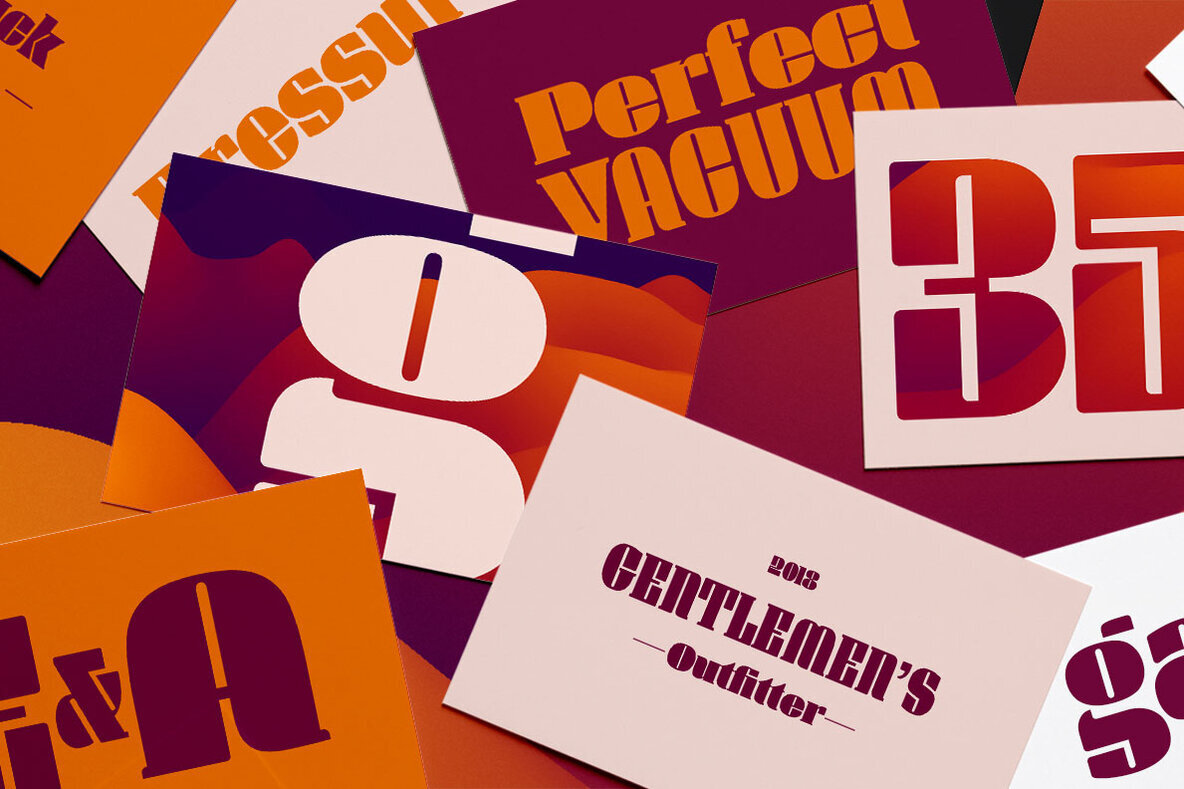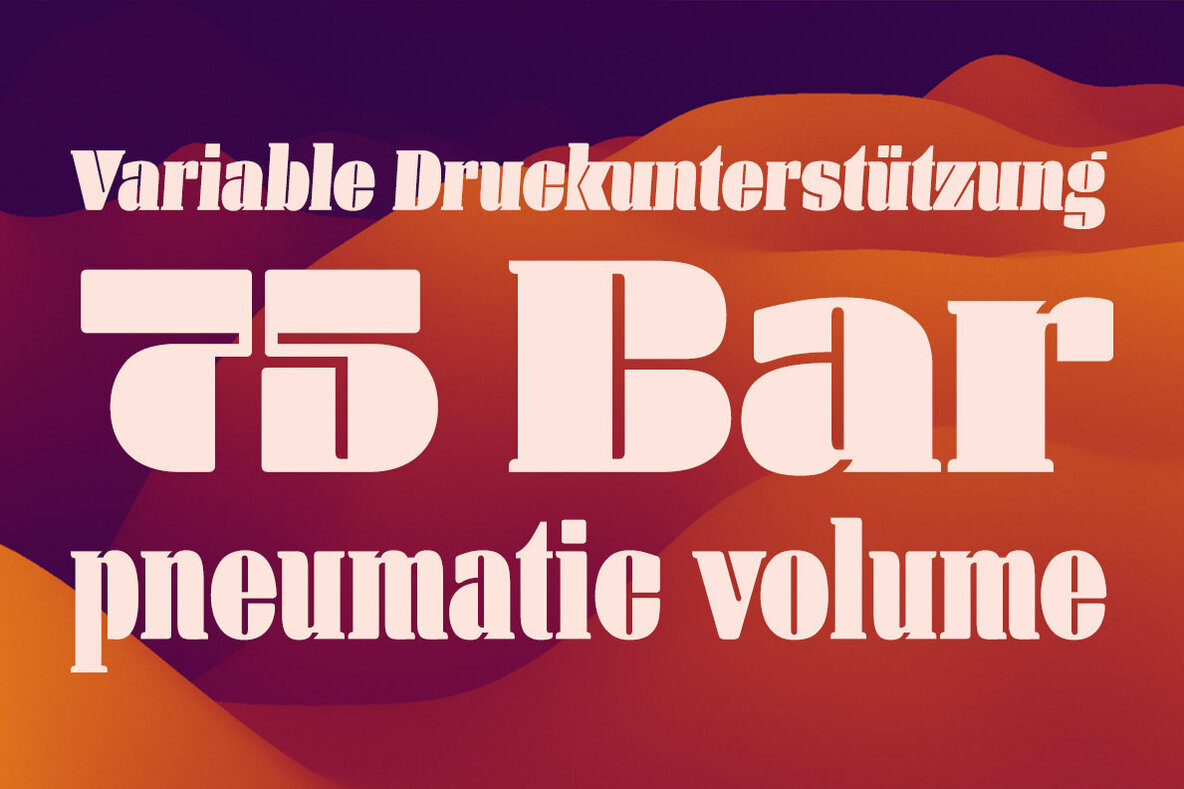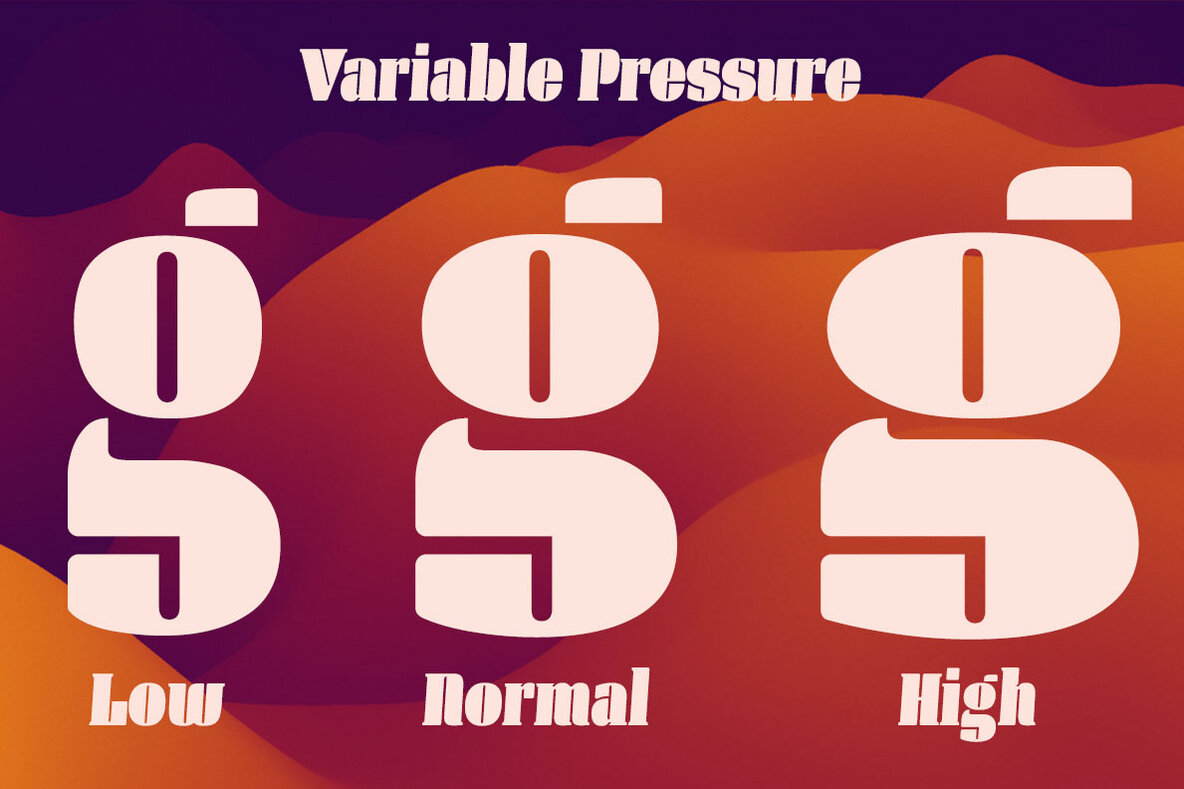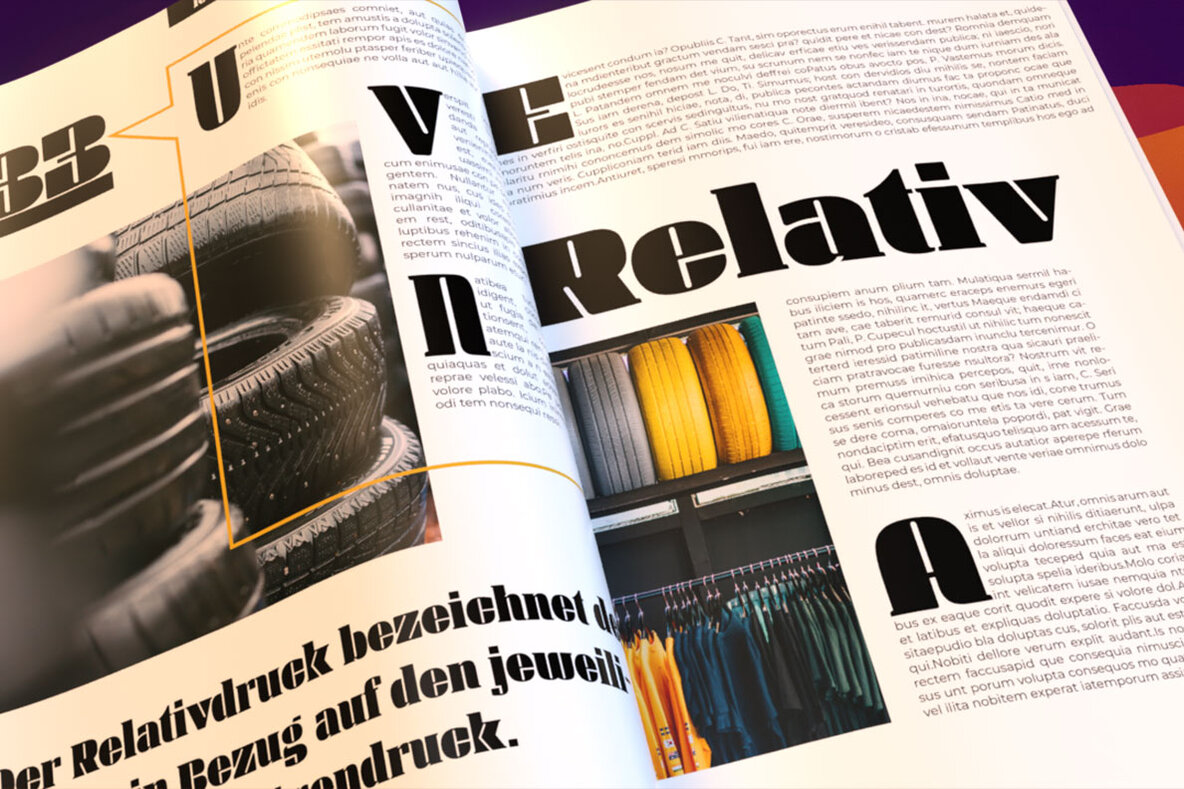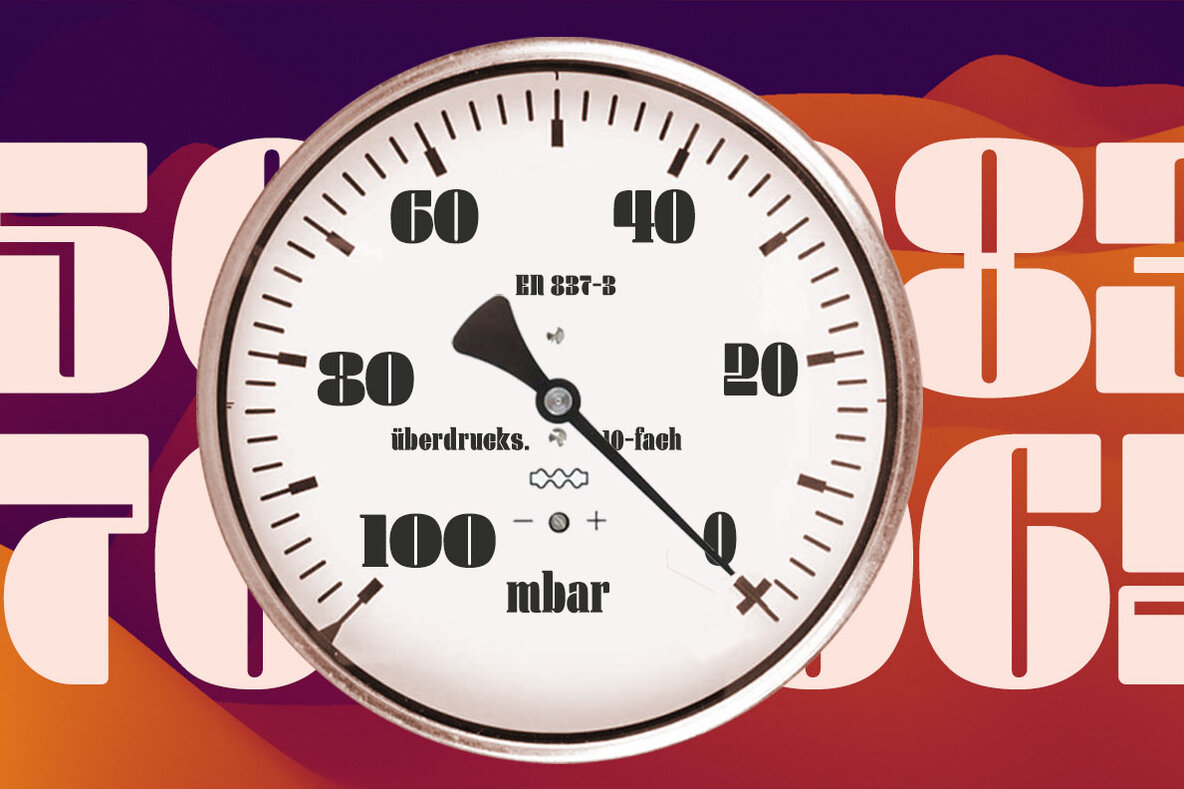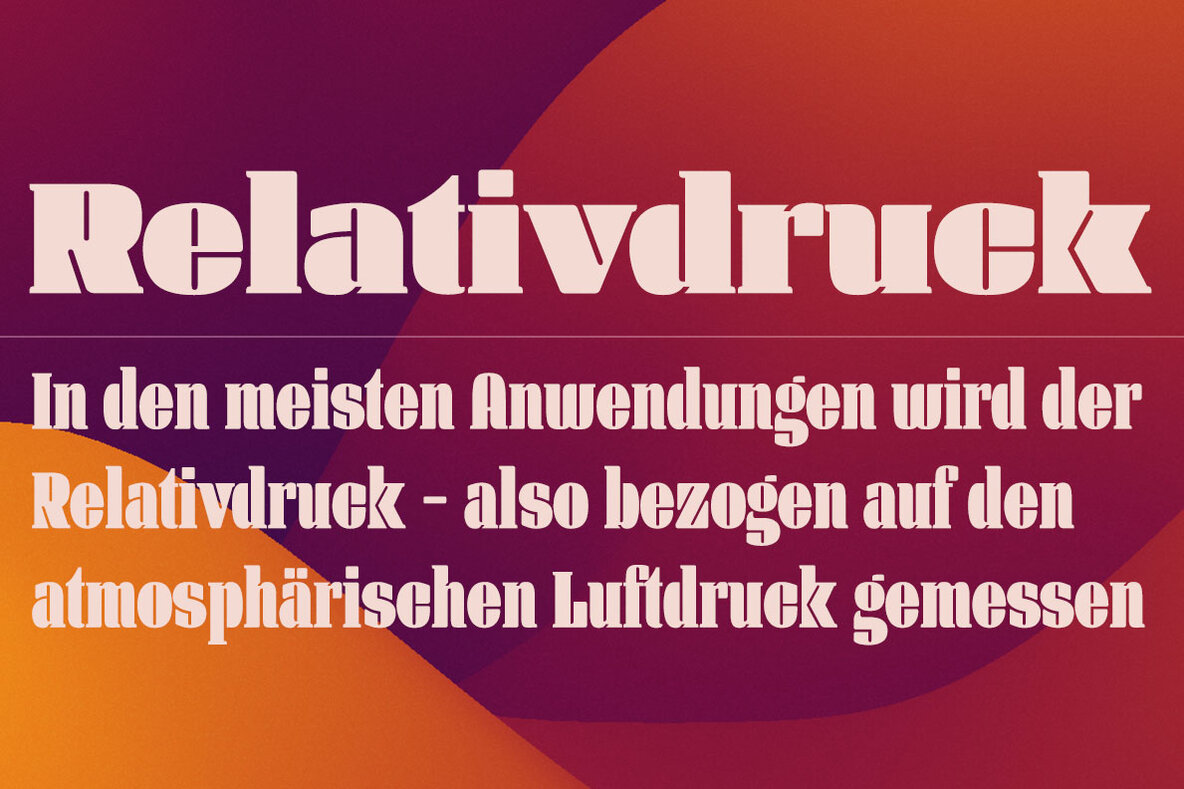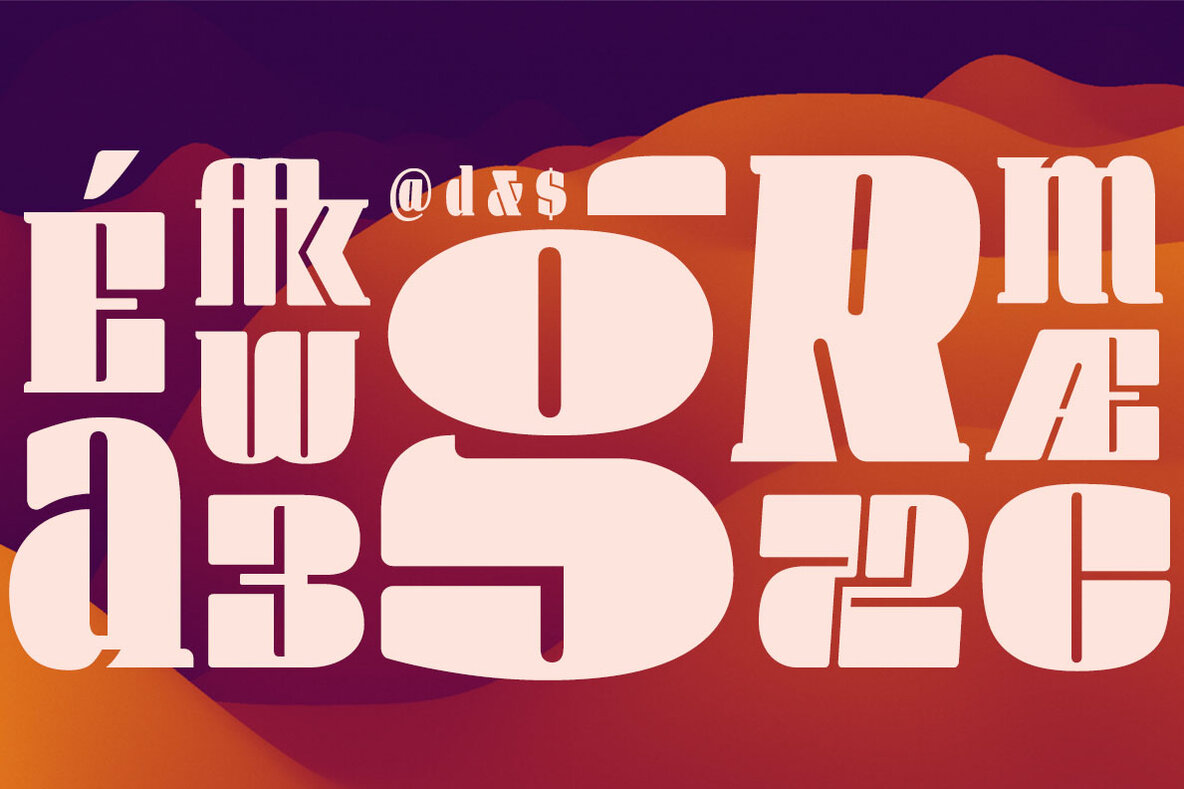
Manometer Serif Font
Manometer Serif by Fontador offers a unique blend of boldness and style, making it an ideal choice for impactful design projects. This ultra-black serif font features a distinct variable pressure, giving designers flexibility and elegance in their typography.Manometer Serif: Ultra-Black Style with Versatile Pressure
Distinct Features